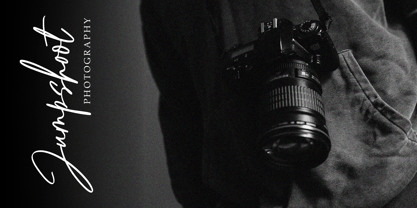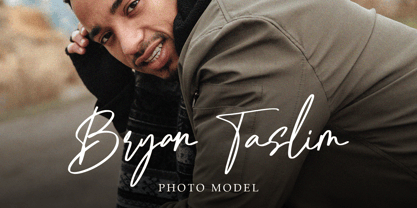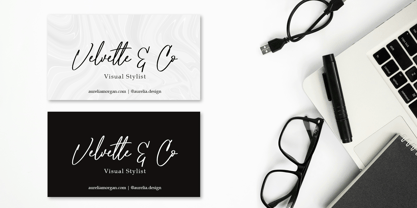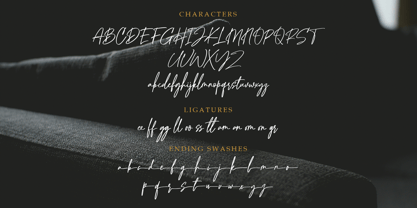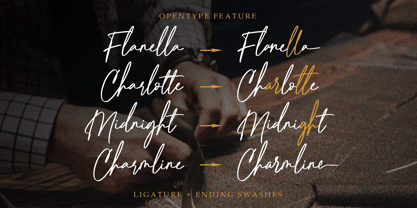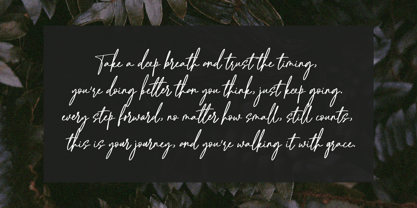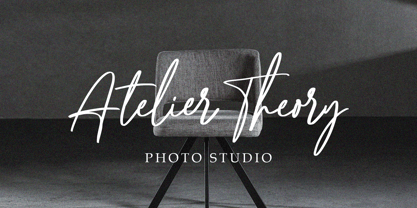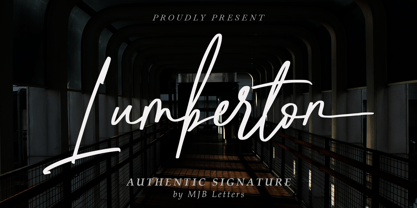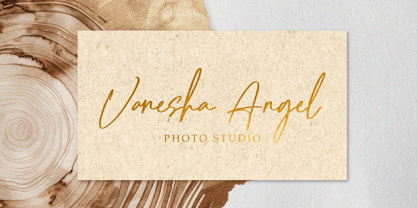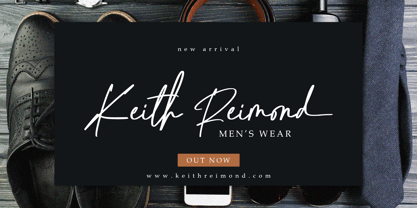
Lumberton
by MJB Letters
The Lumberton Font Family was designed by Muhammad Mujibulloh and published by MJB Letters. Lumberton contains 1 styles. More about this family
Lumberton is a stylish handwritten signature font that blends elegance with a modern touch. Designed to look natural and fluid, it brings a personal, confident feel to your branding and creative projects.
Perfect for logos, business cards, packaging, wedding stationery, social media posts, and more.
• Ligatures & Swashes
Add a sophisticated signature feel to your work with Lumberton.